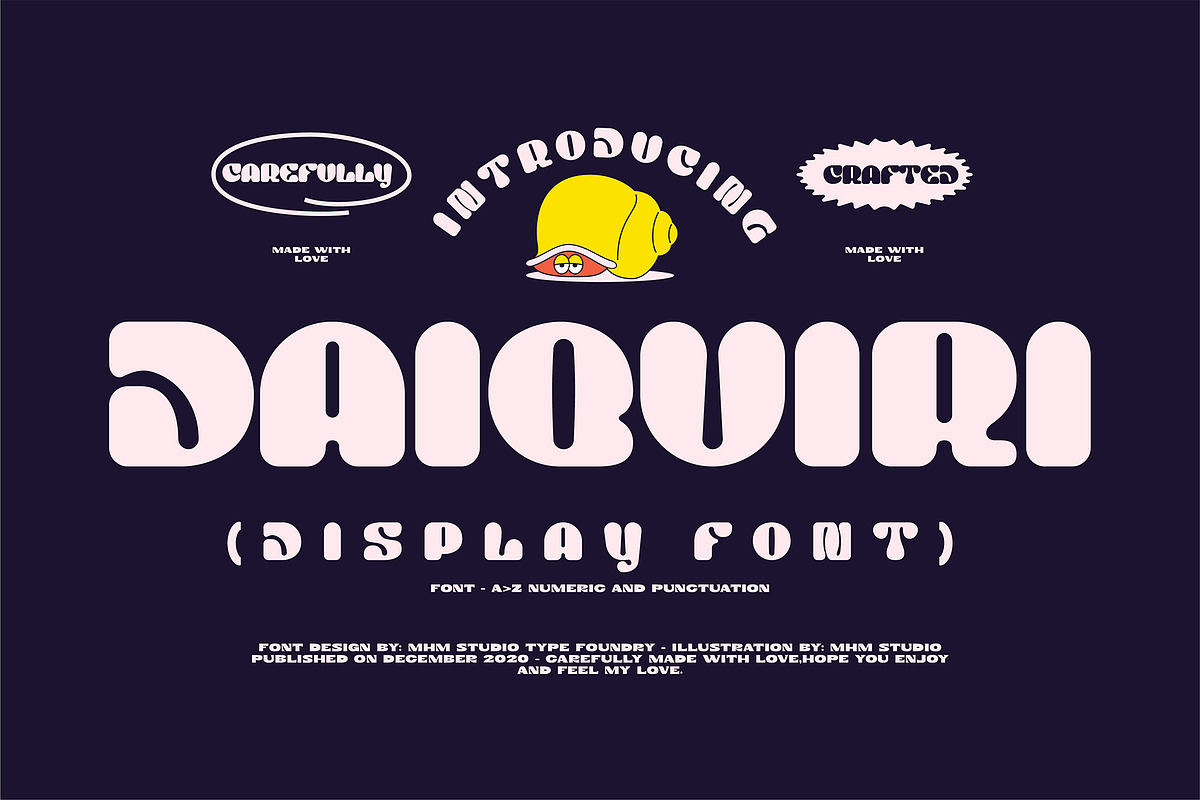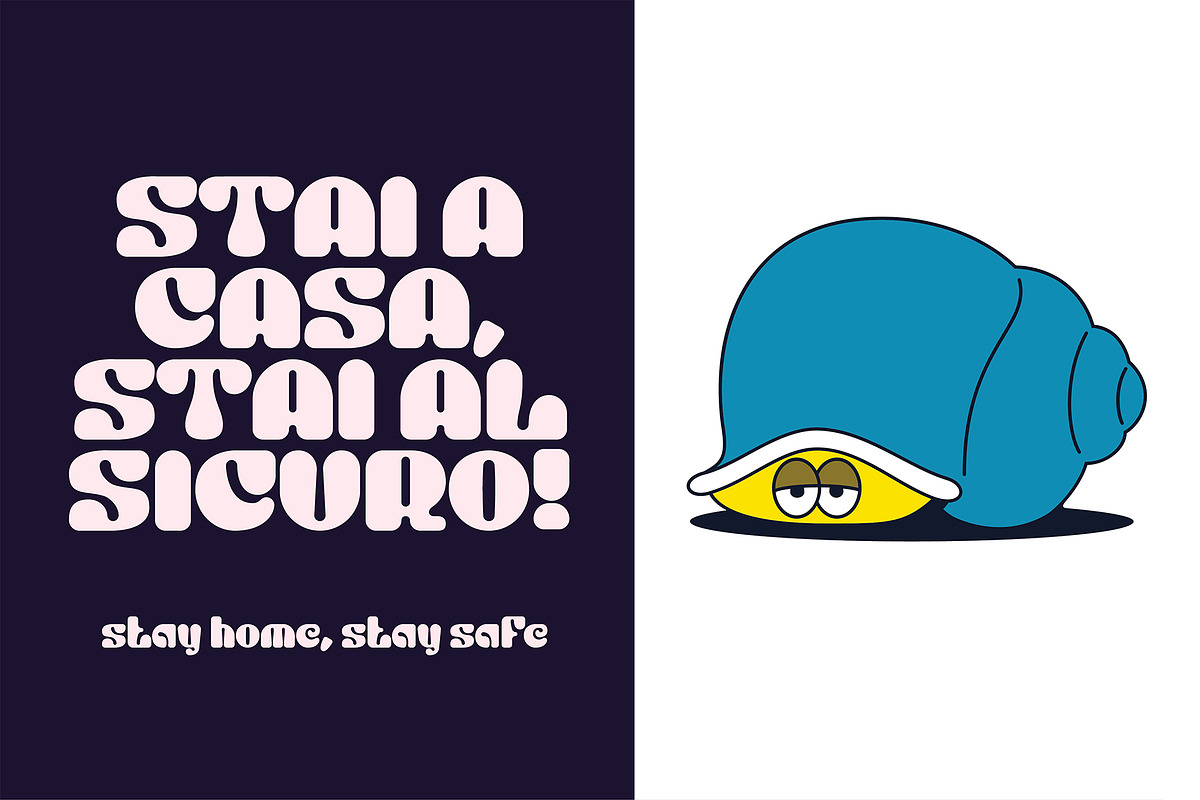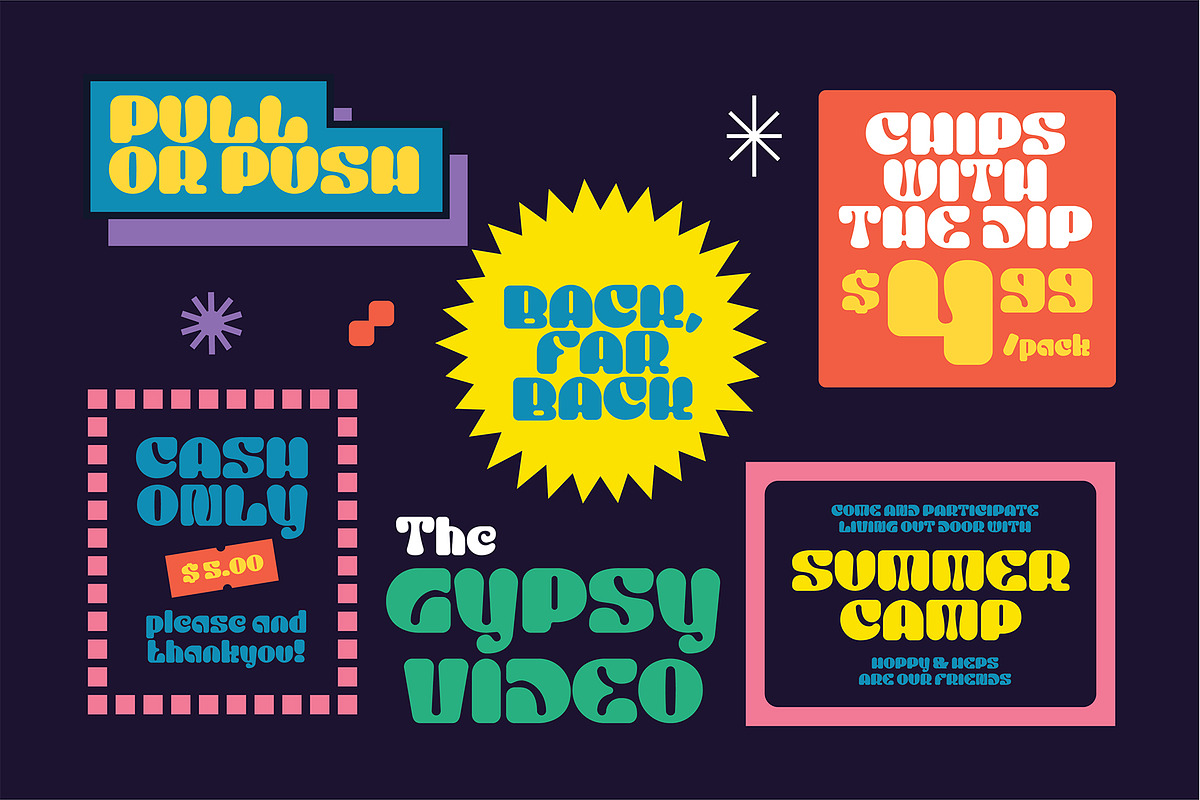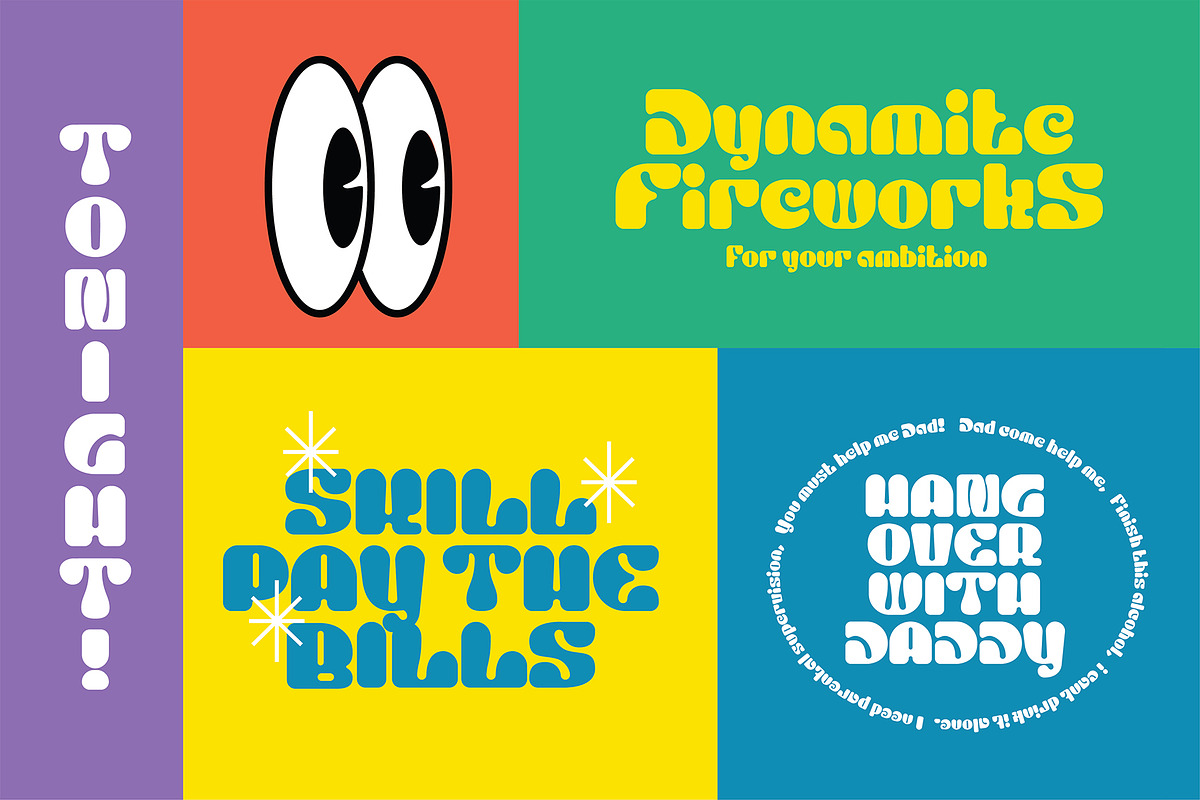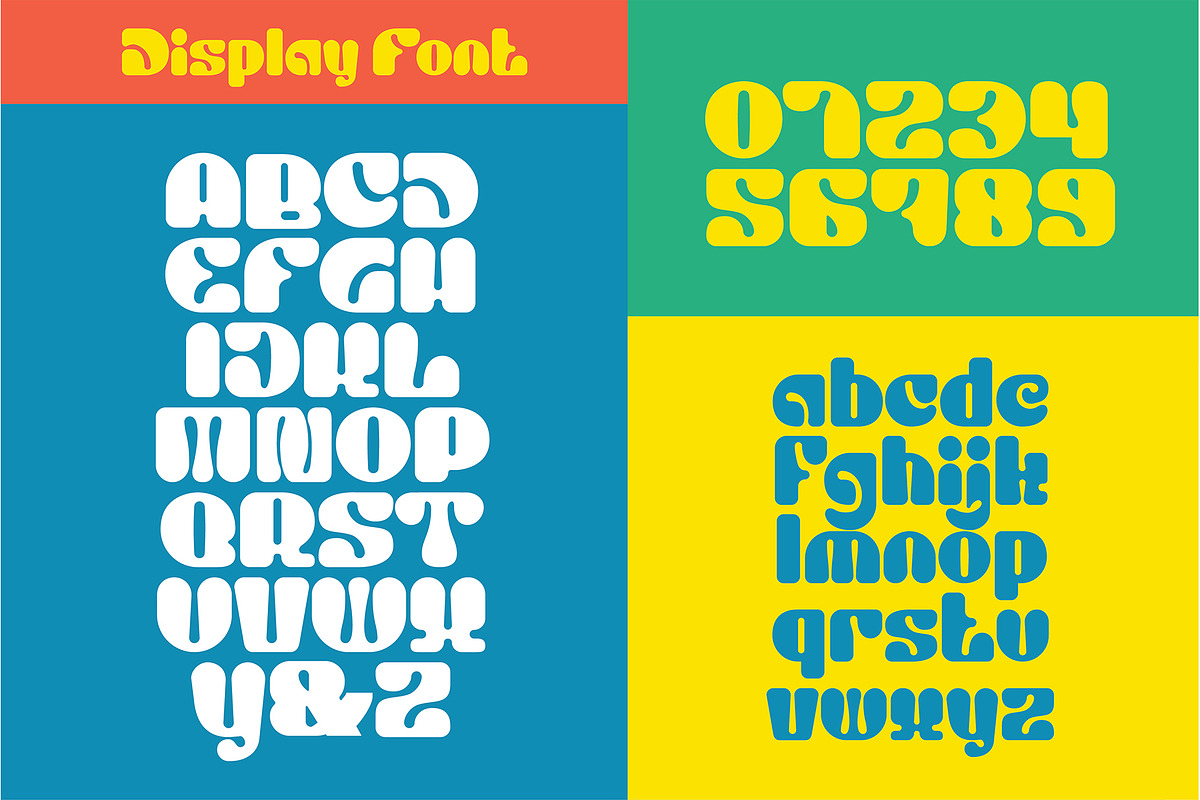
DAIQUIRI
Daiquiri – Playful Retro Display Font
Daiquiri is a bold and bubbly display font that captures the spirit of fun, freedom, and retro charm. Inspired by 70’s groovy aesthetics, this font combines rounded shapes and chunky proportions to create a cheerful and eye-catching look.
Every curve is carefully crafted to balance playfulness and readability, making Daiquiri perfect for headlines, logos, posters, packaging, or any design project that wants to feel joyful and expressive.
Bring back the nostalgic vibe with a modern twist — Daiquiri is made with love and crafted to spread positive energy wherever it appears.
- Uppercase A–Z
- Numerals and punctuation
- Bold and fun retro style
- Perfect for posters, logos, and packaging design
Mood: Playful, retro, funky, and full of love